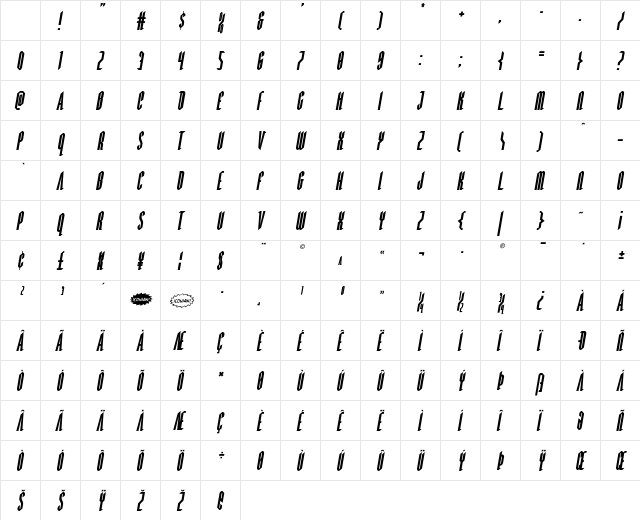
Complete Devil Summoner Italic glyph index. Displaying only characters natively supported by Devil Summoner Italic font.
Devil Summoner is a composed and adaptable typeface that performs quietly and consistently across a wide range of design contexts. The slanted form adds forward momentum and visual energy.